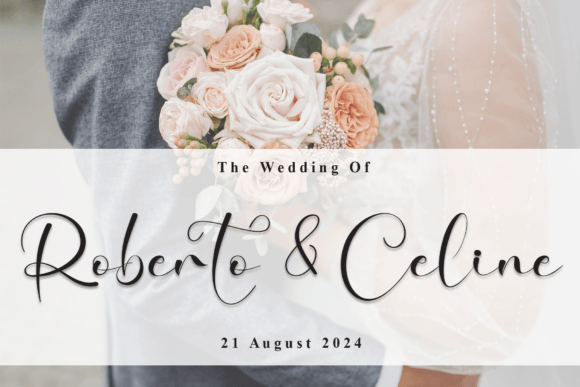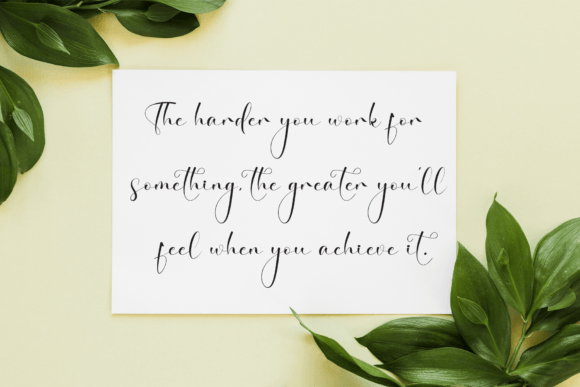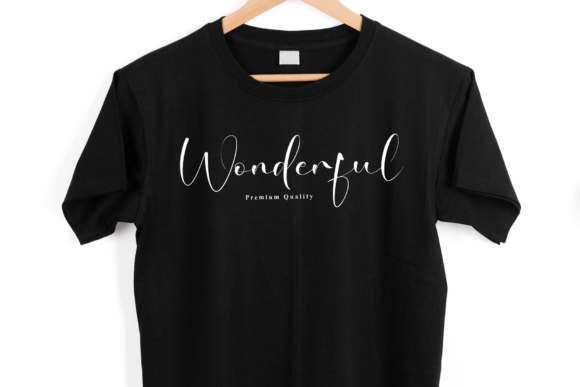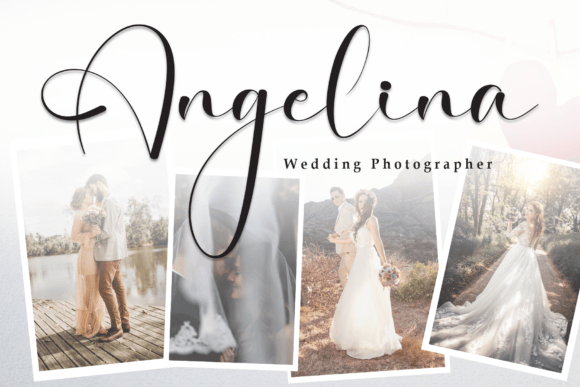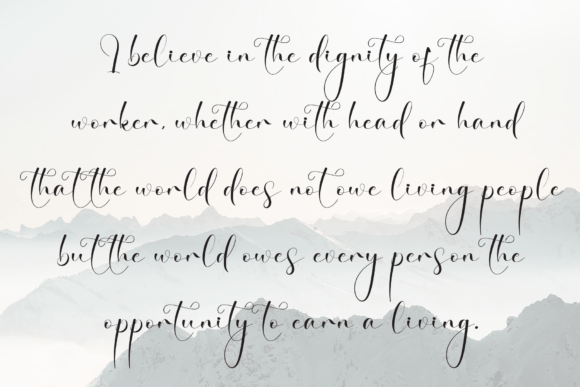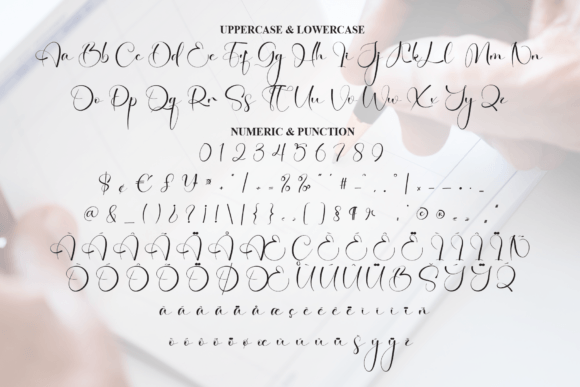
Father Signature Font: Elevate Your Designs with Elegance
Are you looking for a font that exudes sophistication and charm? Look no further than the Father Signature Font, a stylish handwritten font that mimics a personal signature. With its smooth, flowing lines, this font is perfect for creating elegant designs that make a lasting impression.
What is Father Signature Font?
Father Signature Font is a unique and stylish font that is designed to resemble a personal signature. Its smooth, cursive lines give it a distinctive and elegant look that is sure to elevate your designs. Whether you’re a designer, crafty DIY enthusiast, or simply someone who appreciates beautiful typography, this font is a must-have in your collection.
Key Features of Father Signature Font
- Smooth, flowing lines: The font features smooth, cursive lines that give it a distinctive and elegant look.
- Handwritten style: The font has a handwritten style that mimics a personal signature, adding a touch of personality to your designs.
- Elegant and sophisticated: The font’s elegant and sophisticated design makes it perfect for creating high-end designs that exude luxury and refinement.
- Versatile: The font is versatile and can be used for a variety of design projects, including logos, invitations, personal notes, and more.
Uses of Father Signature Font
Father Signature Font is perfect for a variety of design projects, including:
- Logos: Create a professional and elegant logo for your business or brand with this font.
- Invitations: Add a touch of sophistication to your invitations, whether it’s for a wedding, birthday party, or other special occasion.
- Personal notes: Use the font to create beautiful and elegant personal notes, such as thank-you cards or love letters.
- Stationery: Create custom stationery, such as letterheads or greeting cards, with this font.
Benefits of Using Father Signature Font
Using Father Signature Font in your designs offers several benefits, including:
- Unique and distinctive: The font’s unique and distinctive design will set your designs apart from others.
- Elegant and sophisticated: The font’s elegant and sophisticated design will add a touch of luxury and refinement to your designs.
- Easy to read: The font is easy to read, making it perfect for use in a variety of design projects.
- Customizable: The font can be customized to fit your specific design needs.
Tips for Using Father Signature Font
Here are some tips for using Father Signature Font in your designs:
- Use it sparingly: Use the font sparingly to add emphasis and create a lasting impression.
- Pair it with other fonts: Pair the font with other fonts to create a unique and visually appealing design.
- Experiment with colors: Experiment with different colors to find the perfect combination that complements your design.
- Pay attention to spacing: Pay attention to spacing and kerning to ensure that your design looks professional and polished.
Father Signature Font is a stylish and elegant font that is perfect for designers and crafters looking to add a touch of sophistication and charm to their designs. With its smooth, flowing lines and handwritten style, this font is sure to elevate your designs and make a lasting impression. Whether you’re creating logos, invitations, personal notes, or other design projects, Father Signature Font is a must-have in your collection.